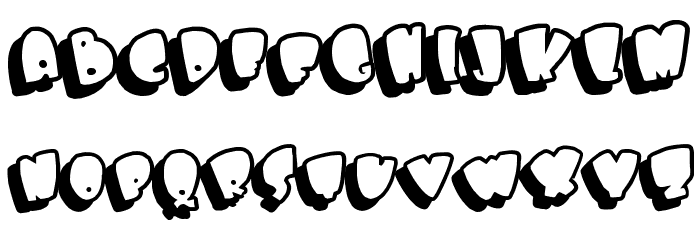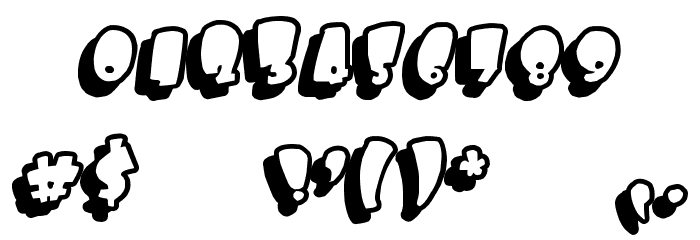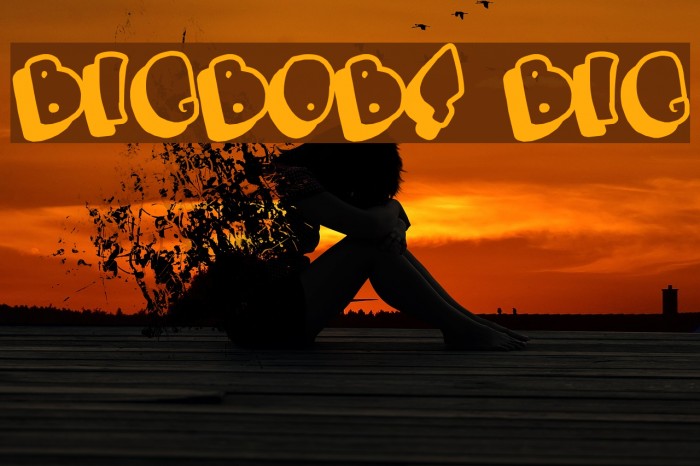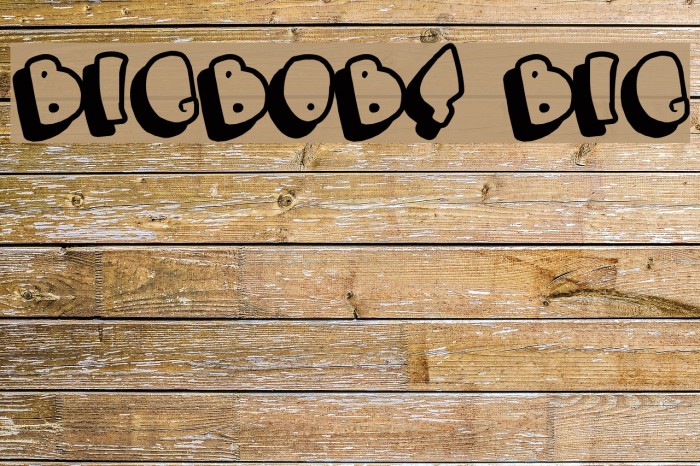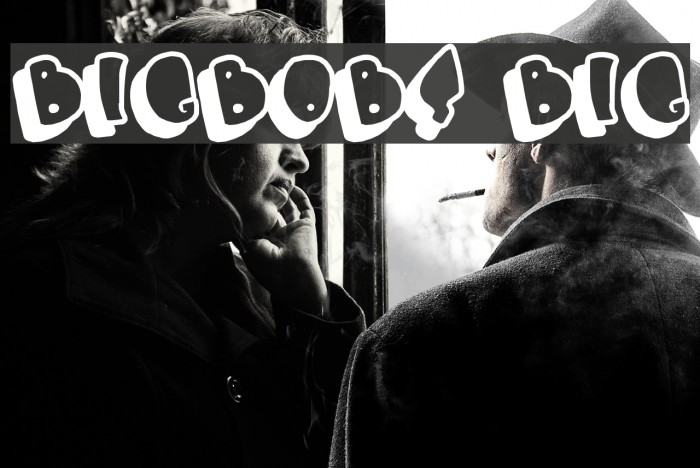
BIGBOBS BIG Font
This playful and bold font features a chunky, three-dimensional style with a strong shadow effect, giving each character a sense of depth and volume. The letters are rounded and slightly irregular, adding a whimsical and cartoonish feel. The font is highly decorative, with a unique and eye-catching appearance that makes it stand out. It includes both uppercase and lowercase letters, numbers, and a selection of special characters. The overall design is fun and energetic, making it suitable for projects that require a lively and informal touch.
A bold, playful font with a 3D shadow effect and cartoonish style.
- Proposed Projects: Ideal for children's books, comic strips, playful branding, party invitations, and posters.
- Overall Style: Playful, Cartoonish, Decorative
- Use Case: Headlines, Posters, Branding